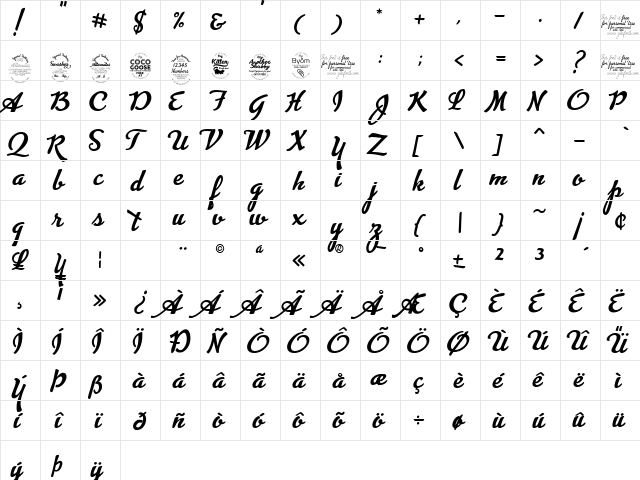
Advertising Script Bold
| Foundry | Studio Kmzero |
| Designer | Cosimo Lorenzo Pancini with Matteo Chiti, Luca Chiti and Andrea Tartarelli after George Russ |
Design Context for Advertising Script Typeface
Advertising Script brings a calligraphic fluidity to the page — its connecting strokes and expressive curves give it an unmistakably human quality. Its bold stroke weight gives it real presence on the page.
Font Pairing: Combine Advertising Script with a simple geometric sans for maximum contrast — the tension between flowing curves and clean structure is a classic typographic pairing.
Pro Tip: Use Advertising Script for short runs of text — names, titles, or taglines. Extended body copy in script faces tires the eye quickly.